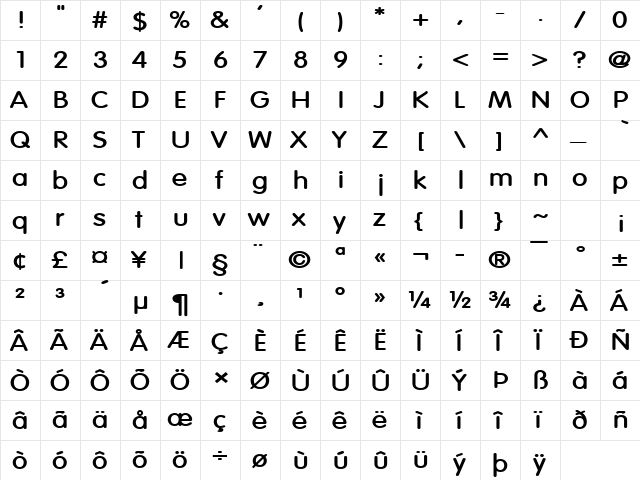
Vogel Wide Bold
Design Context for Vogel Wide Typeface
Vogel Wide takes a measured approach to typography — its balanced proportions and neutral character make it a reliable workhorse for both digital and print work. The heavy weight commands attention and anchors typographic hierarchies.